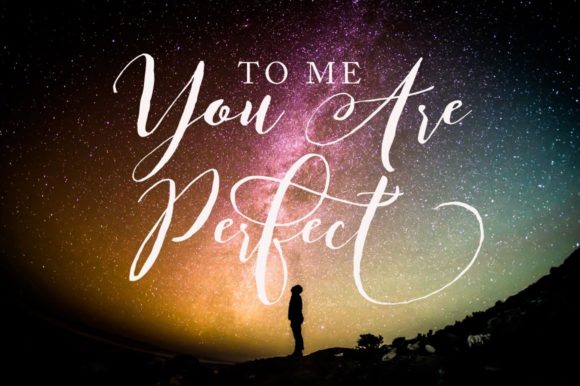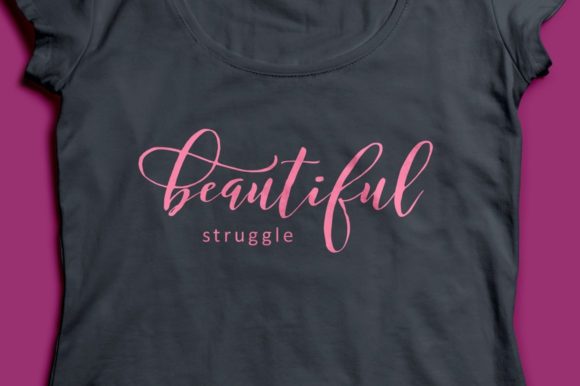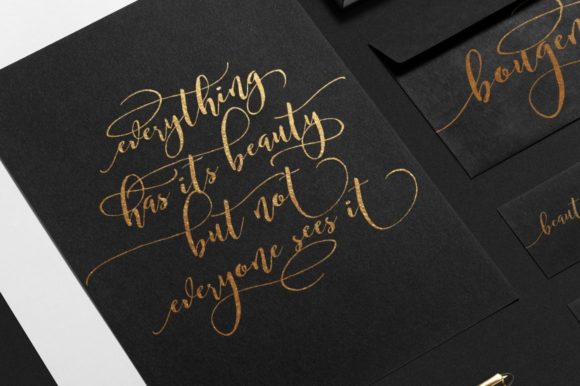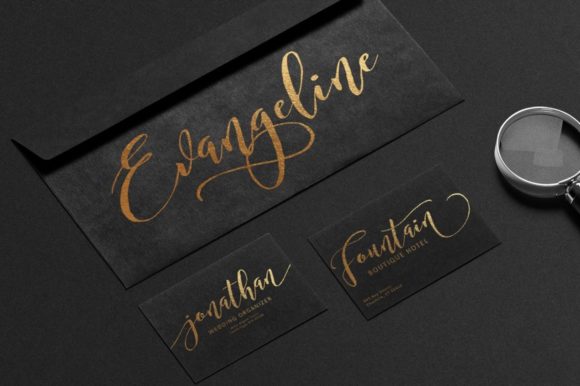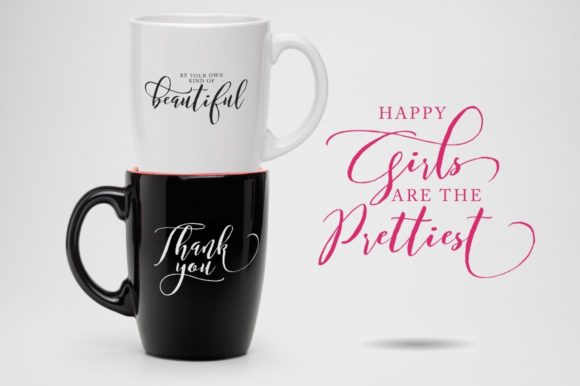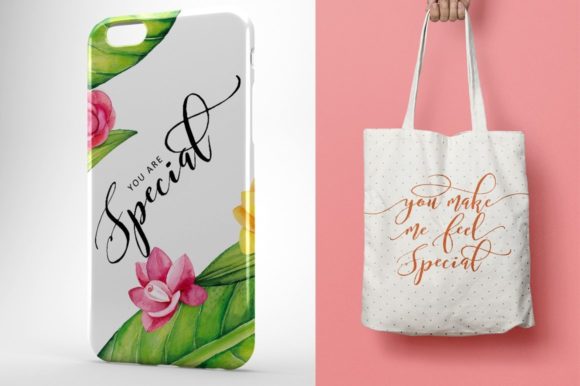
Discover the Timeless Charm of Bougenville Font
Have you ever been browsing through a design blog or a beautifully crafted brochure, and suddenly you’re struck by the elegance and sophistication of the typography? That’s the magic of a well-chosen font, and for designers, it’s a crucial element in creating a lasting impression.
For those who crave a beautiful and refreshing look for their designs, Bougenville Font is a treasure trove of calligraphic charm. Crafted with precision and attention to detail, this font is perfect for adding a touch of class to any project. As a PUA encoded font, Bougenville Font makes it easy to access all the glyphs and swashes, allowing designers to unleash their creativity without any limitations.
With Bougenville Font, designers can create stunning visual effects that elevate their work to new heights. Whether you’re a graphic designer, a typographer, or a digital artist, this font is sure to become a trusted companion in your creative journey.
Bougenville Font Key Features
- Unique Characteristics: This font features a unique blend of elegant and rustic elements, with intricate details and ornaments, making it perfect for creating a sophisticated and vintage look.
- Kerning and Ligatures: The font includes advanced kerning and ligature pairs, ensuring smooth and even spacing between letters, and adding to the overall aesthetic appeal.
Bougenville Font Review
I’ve had the chance to work with the Bougenville font, and I must say it’s a unique and elegant addition to any design project. Here’s my honest review:
The Bougenville font’s distinctive flair and curves add a touch of sophistication to any text. It’s perfect for branding, invitations, and other formal designs.
The font’s range of weights and styles offers a lot of flexibility, making it suitable for various design projects, from headings to body text.
The Bougenville font is highly legible, even at smaller font sizes, making it a great choice for digital designs.
The Bougenville font may be too ornate for some designs, and its unique flair might not be suitable for projects requiring a more minimalist approach.
The font’s complexity might make it challenging to pair with other fonts, requiring some experimentation to find the perfect combination.
Overall, I think the Bougenville font is a great addition to any designer’s toolkit. While it may have some limitations, its unique charm and versatility make it a valuable asset for designers looking to add some elegance to their projects.
Tips for Getting the Most Out of Bougenville Font
For the best results, use the Bougenville Font in combination with elegant graphics and a minimalist color scheme. This will help to create a sophisticated and professional look. Additionally, consider using the font in bold or italic styles to add emphasis and visual interest.
The Bougenville Font is particularly well-suited for use in wedding invitations, luxury branding, and high-end marketing materials. Its elegant and refined style makes it perfect for creating a sense of sophistication and glamour.